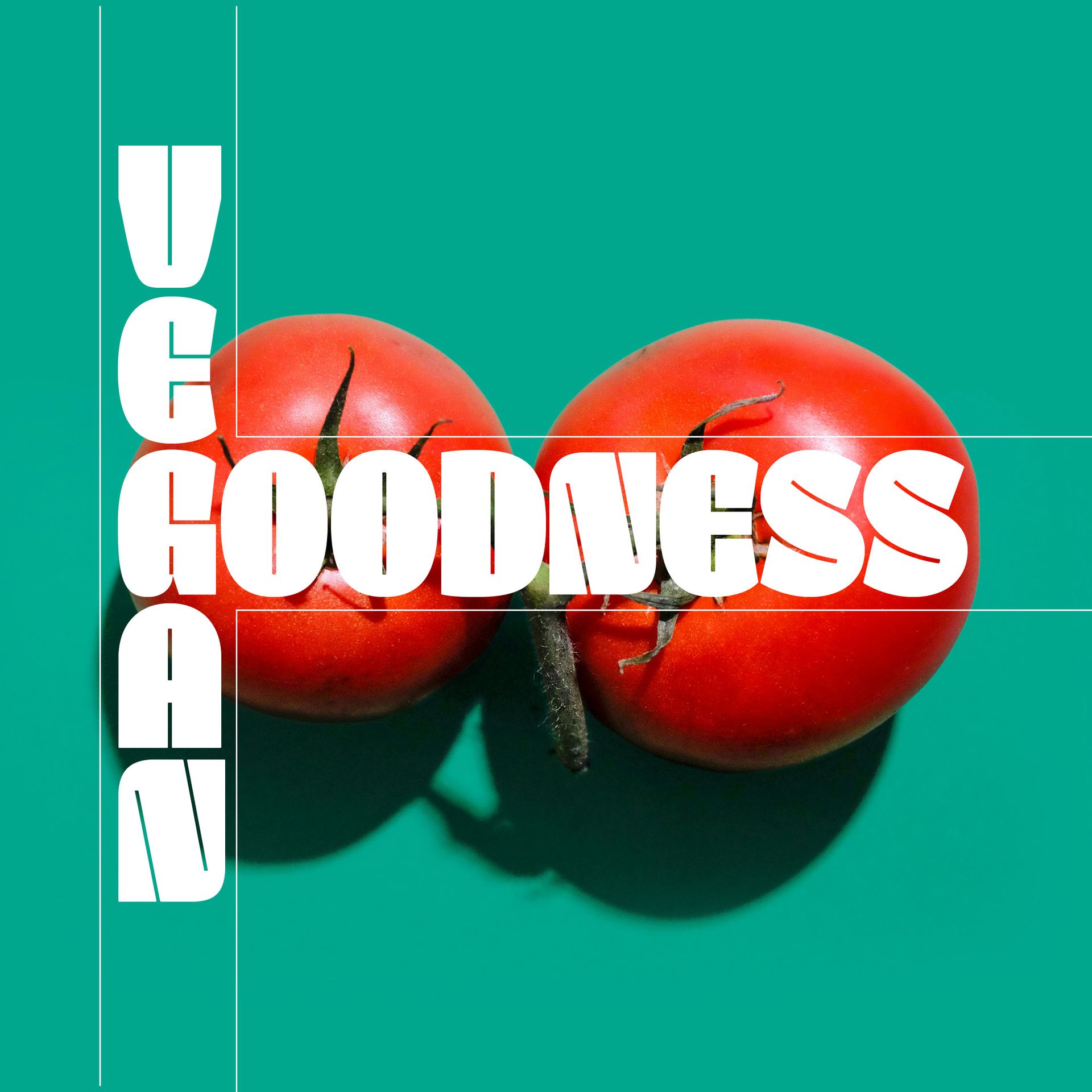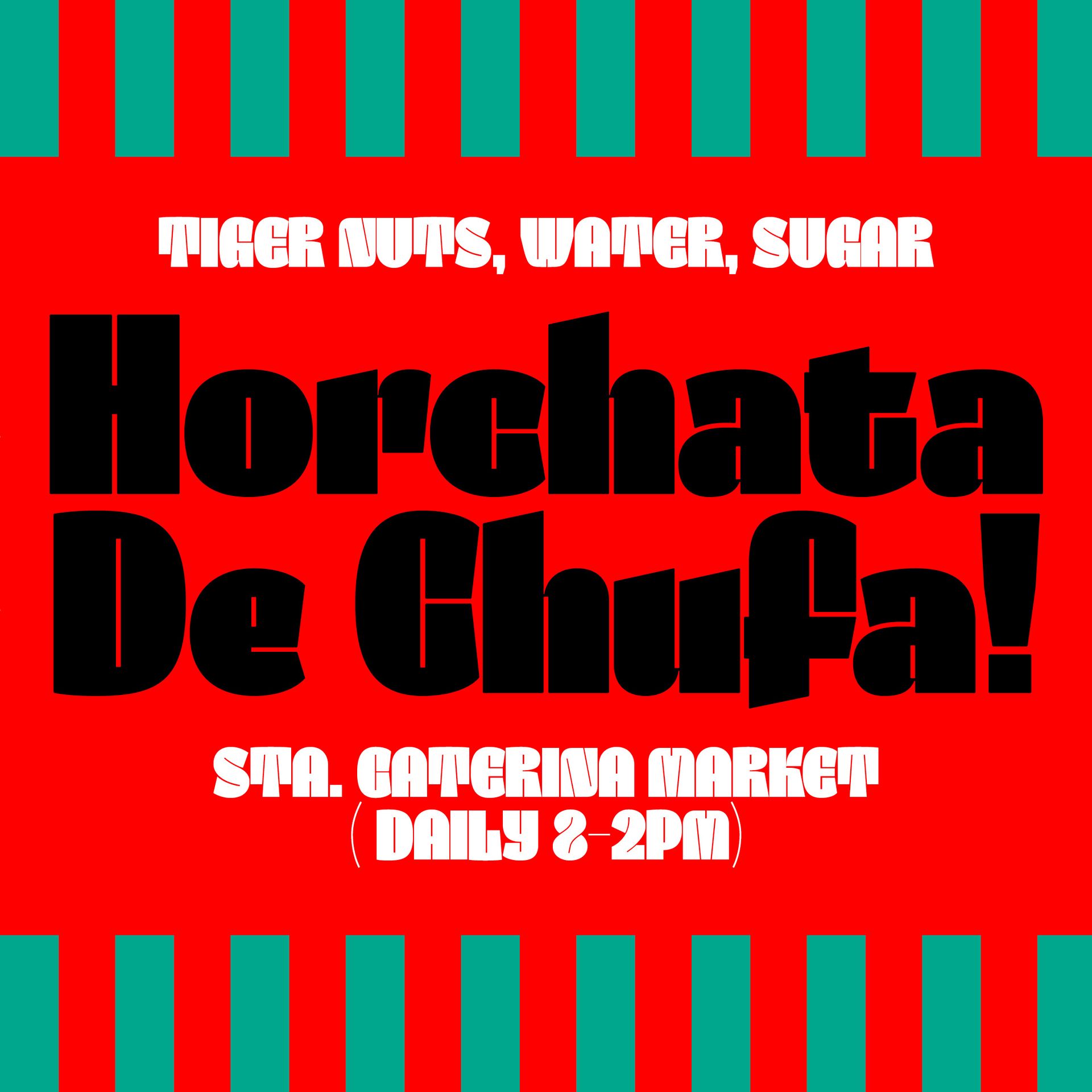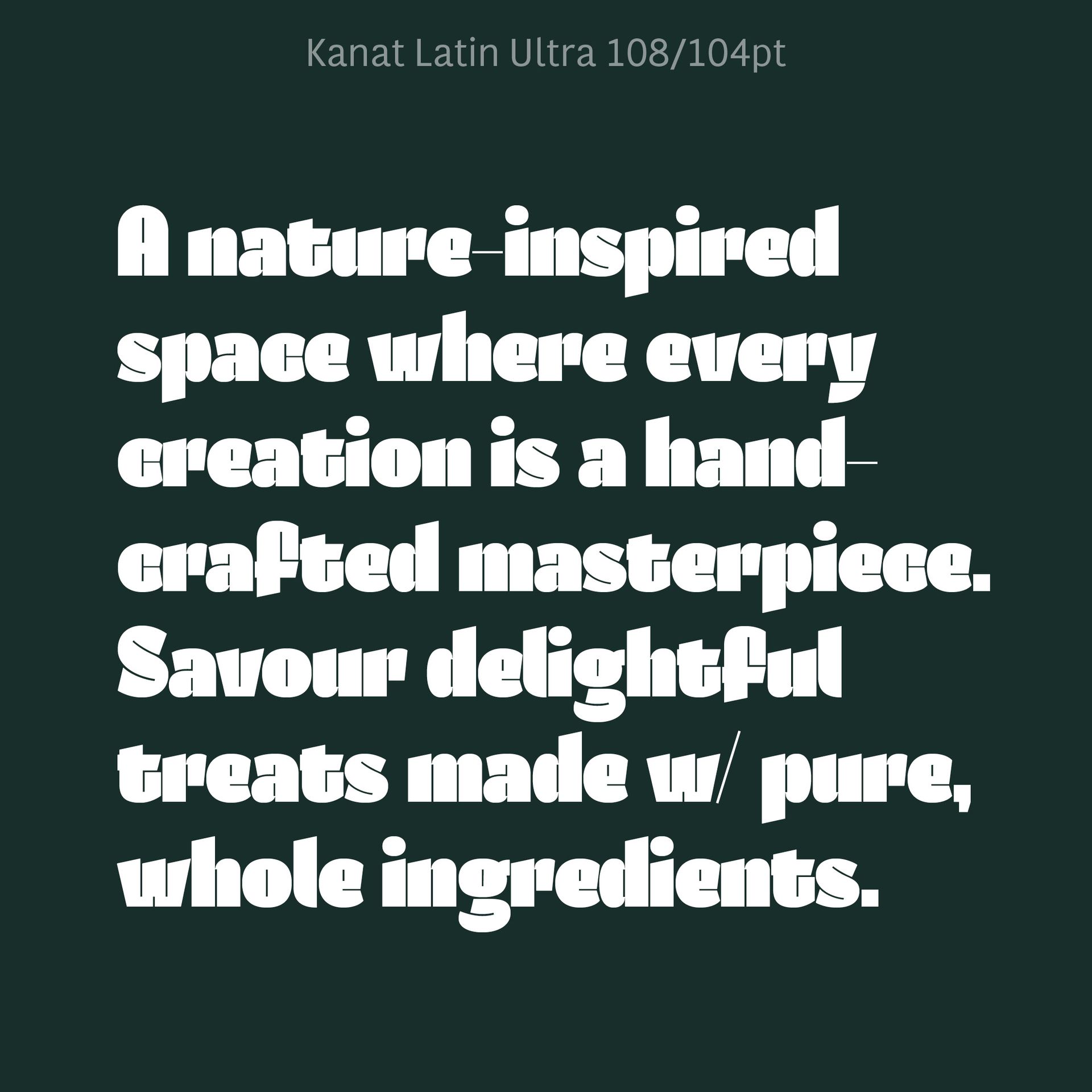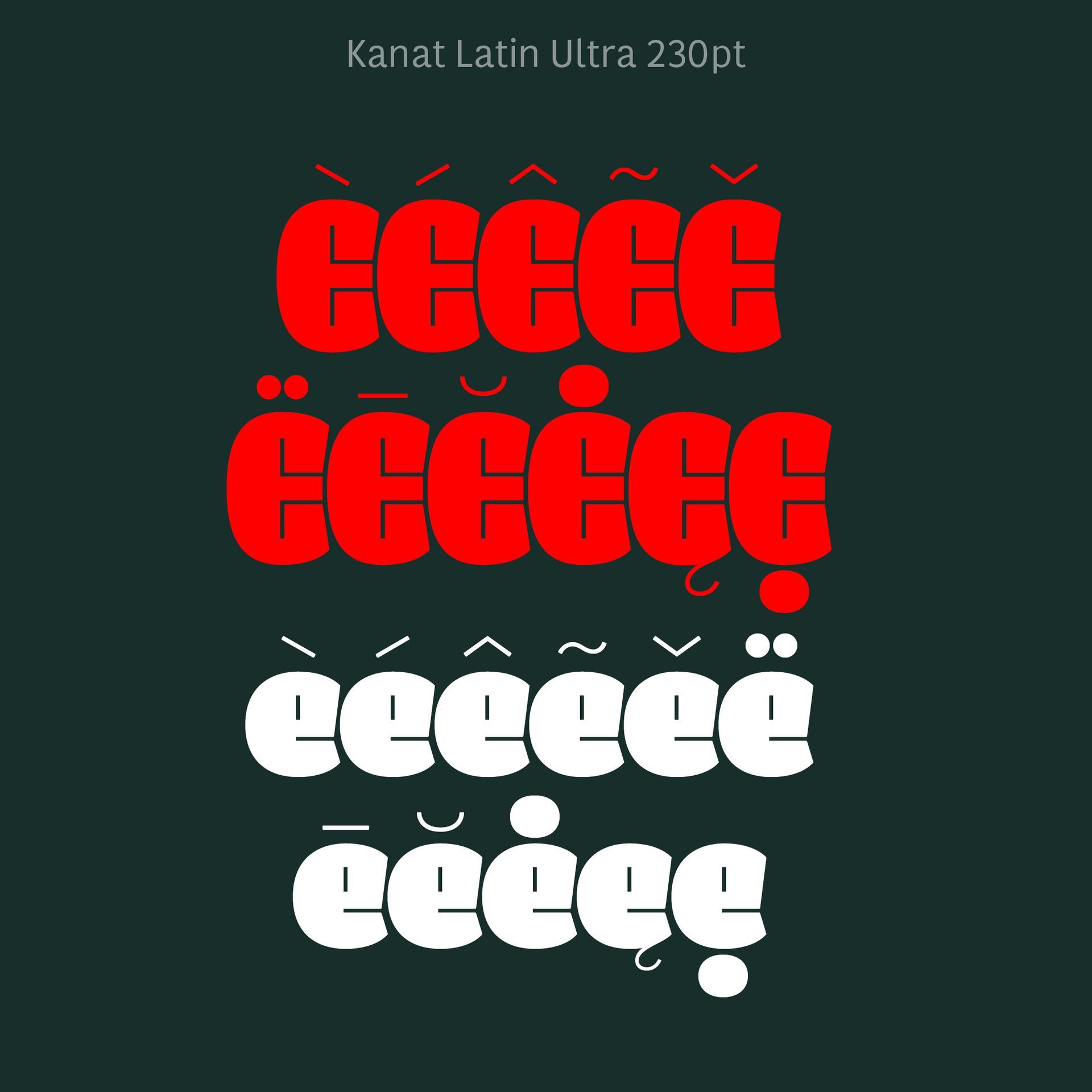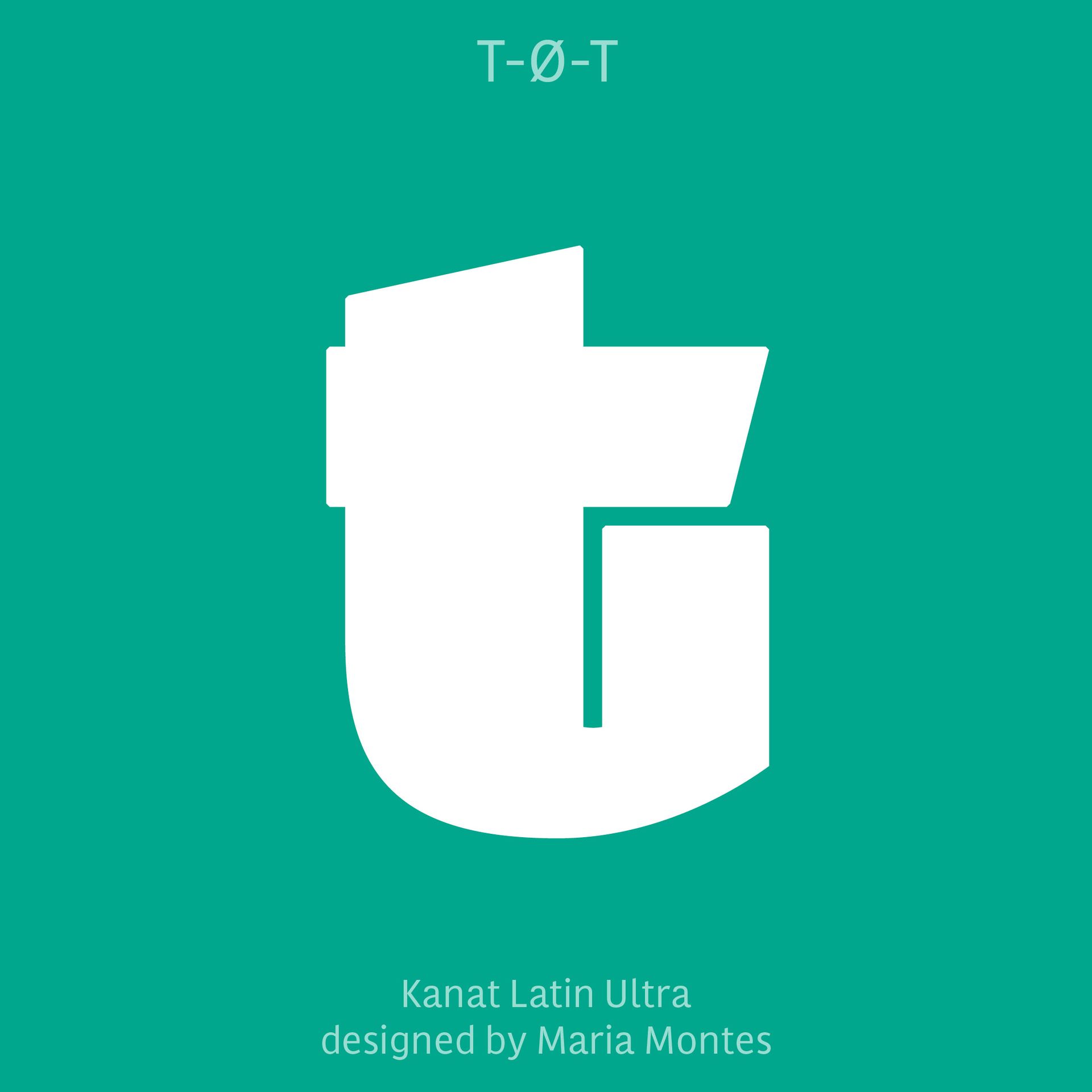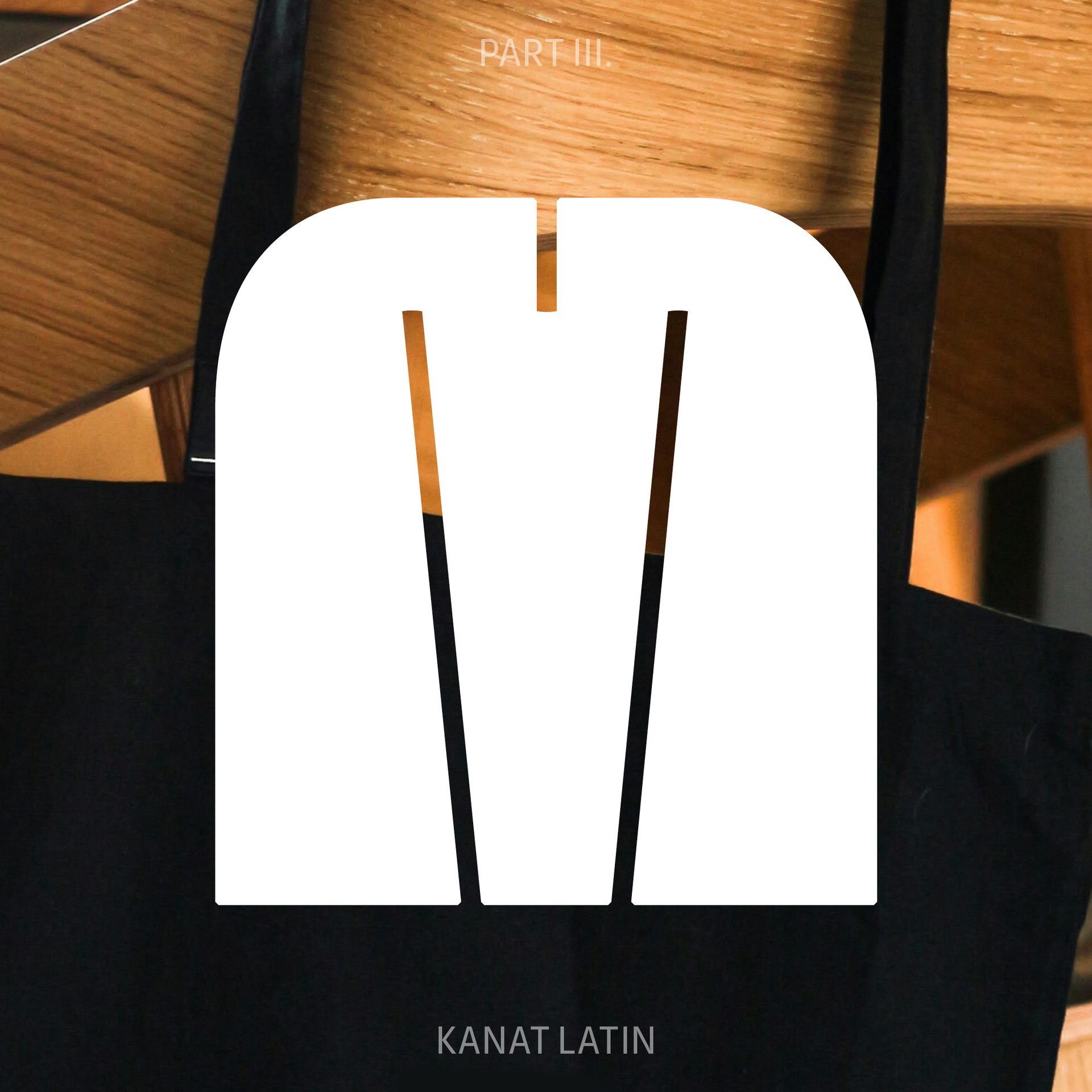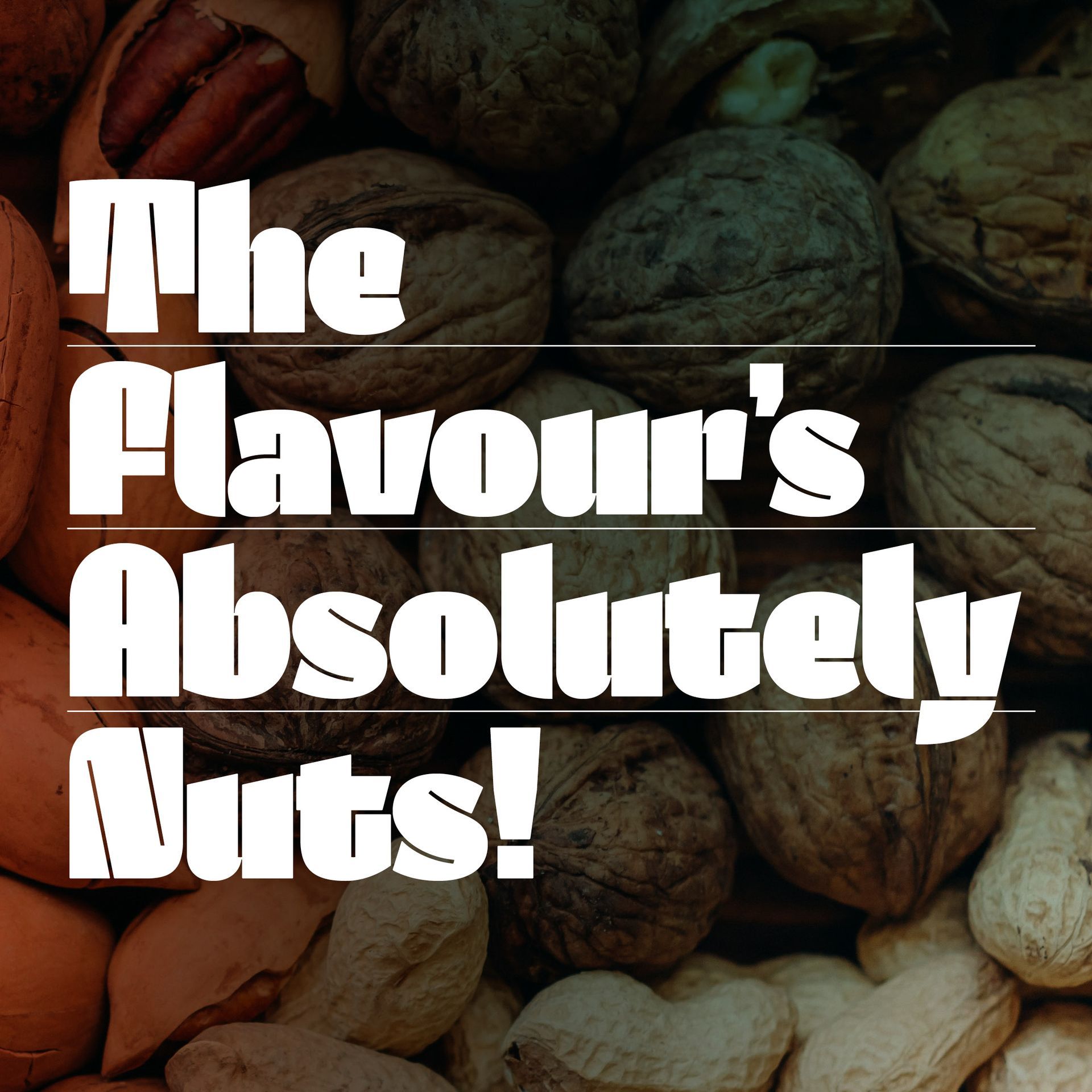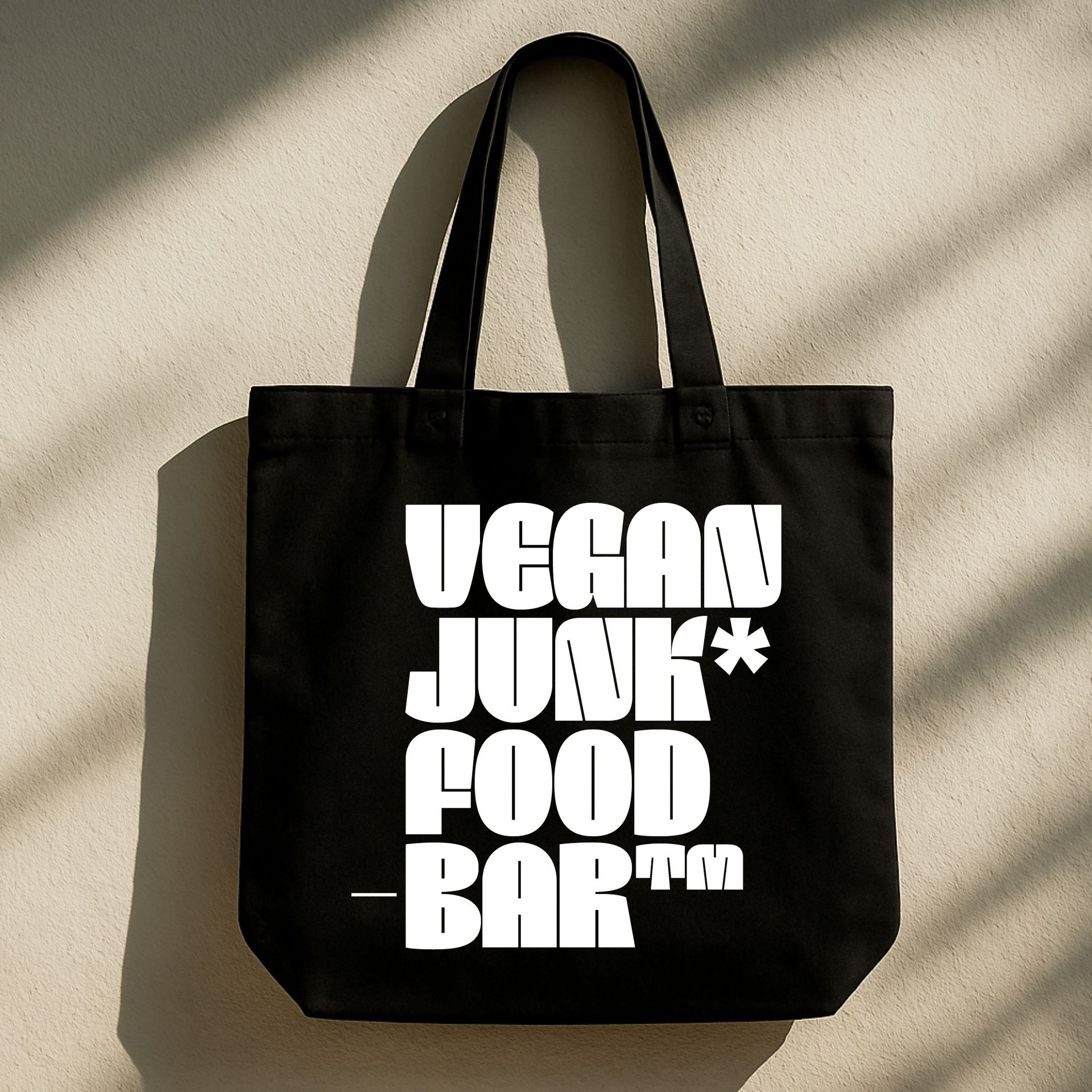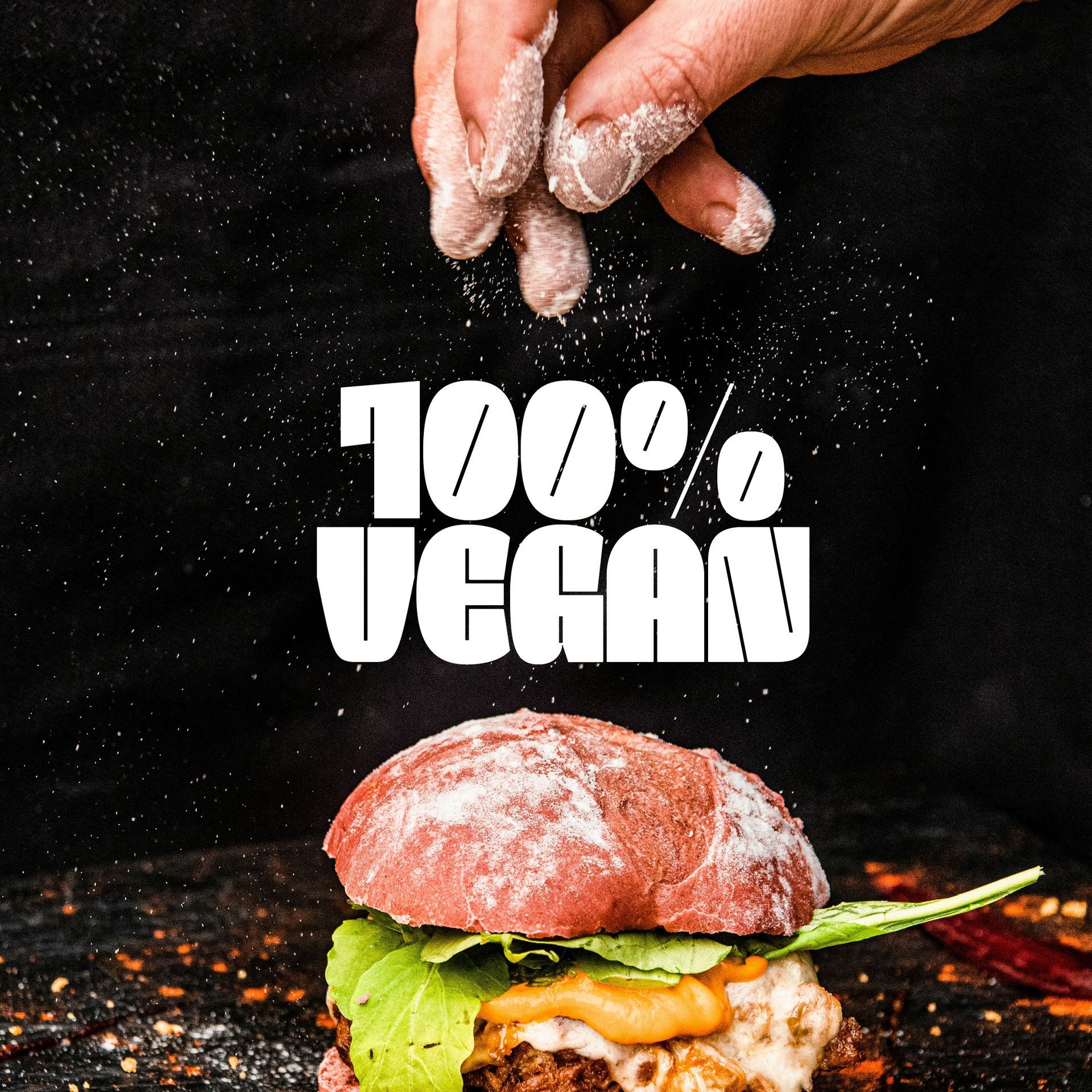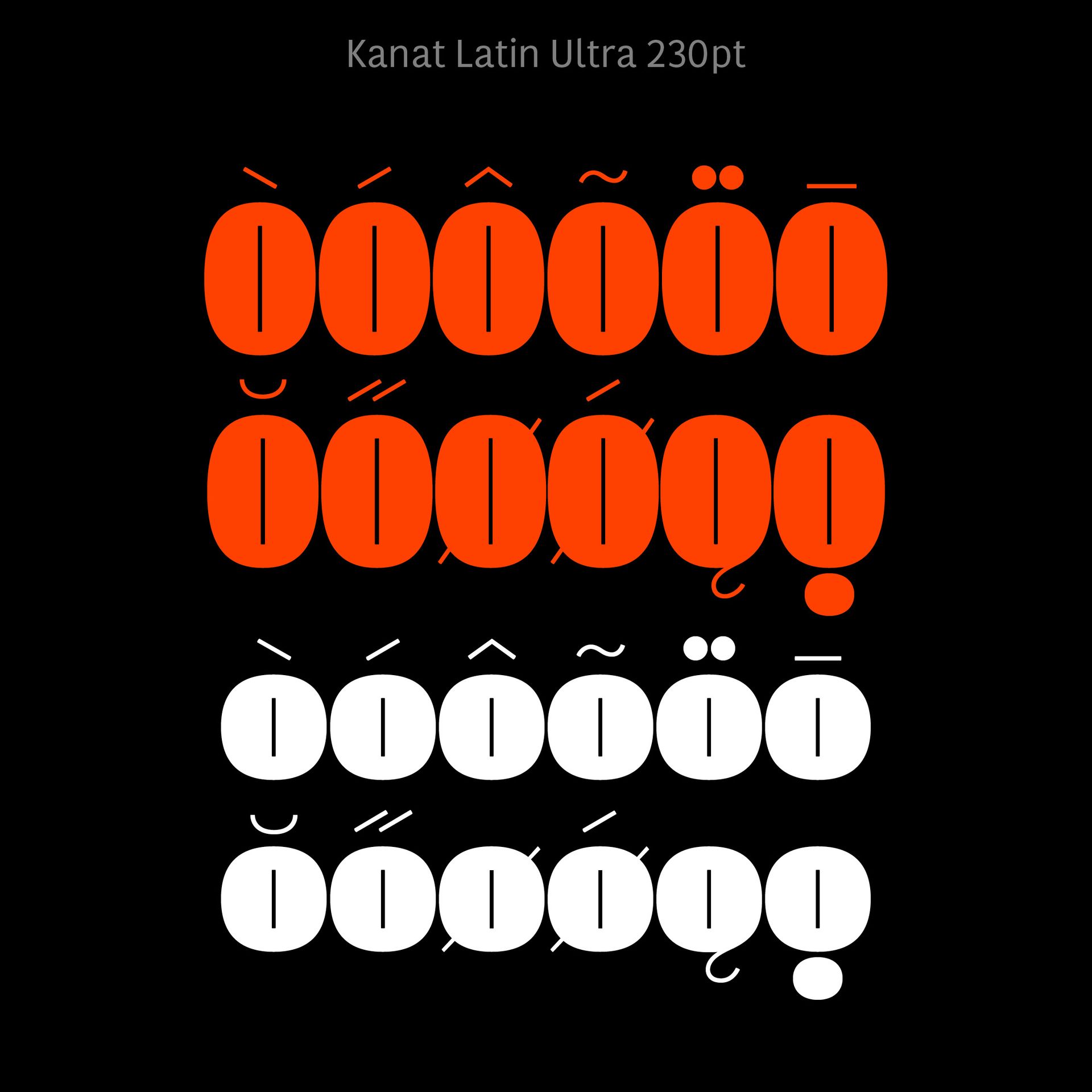
Kanat Latin Ultra | Display Font
Kanat Arabic Solid by Lara Captan + Kanat Latin Ultra by Maria Montes in close conversation!
Kanat Latin Ultra: Graphic Expressionism
In 2024, the Arabic type designer Lara Captan challenged Maria Montes to create a Latin companion for her existing Arabic display font called Kanat — the Turkish word for “wing.” Captan’s beautiful typeface is a detached stencil design, originally created for letterpress, which carries architectural playfulness and delivers a warm kind of boldness to the reader.
Based on the description above— and challenged by the question: How can I create a Latin companion for an Arabic font I cannot read or write? — Montes spent many hours observing and analysing Kanat Arabic, its personality and DNA, followed by many more hours of consulting with Lara Captan. The result is a Latin interpretation that carries a bold attitude and playful spirit.
Kanat Latin is best used at 48pt and above. It’s designed to highlight words with flair, and finds its sweet spot in architectural, food, music, fashion, and packaging contexts.
Kanat Latin Ultra: Language Support
Kanat Latin has a bold attitude and playful spirit. It loves tomatoes, bananas and avocados too! The font supports 269 languages and covers Basic Latin, Latin-1 Supplement, Latin-2 Central European and Latin Plus.
Following its Arabic companion called Kanat Solid by Lara Captan, it contains some stencil characters including: g, j, &, $, €, £, ¥, ¢, ƒ, amongst others.
Type designer: Maria Montes
Latin type mentor: Josema Urós
Arabic type mentor: Lara Captan